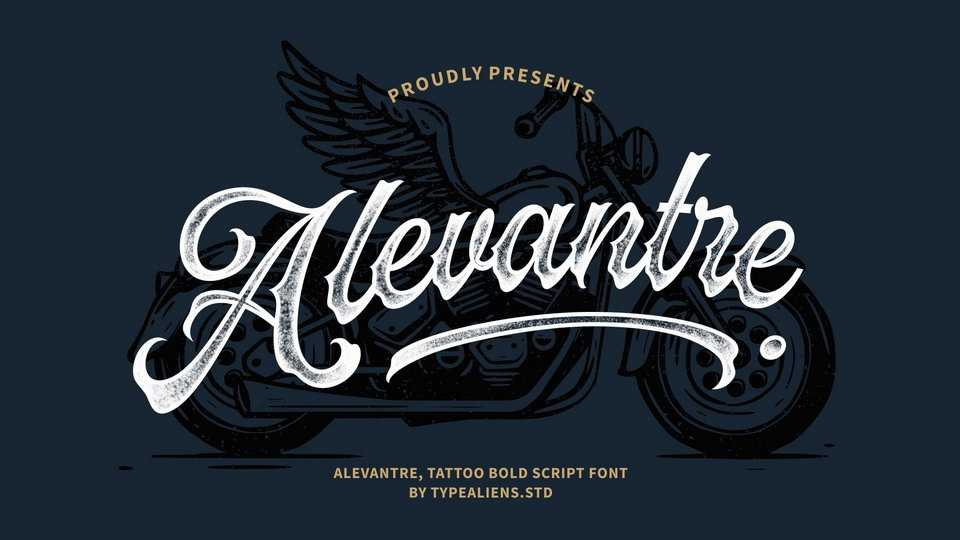
Download Alevantre font, a tattoo style script, of course it will be very suitable for your tattoo lettering design. Alevantre is also very suitable if you want to make your tattoo studio logo using this font.
Designer: Typealiens